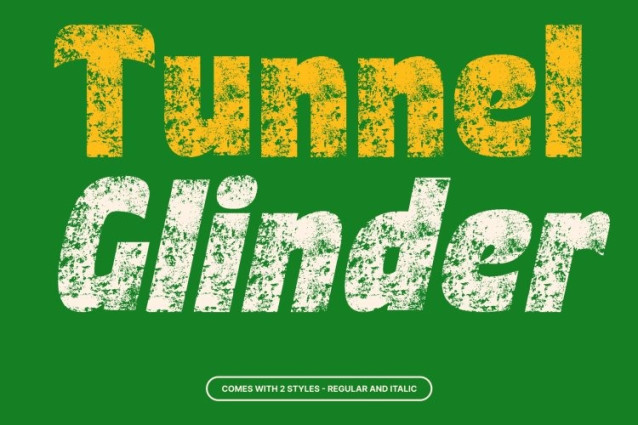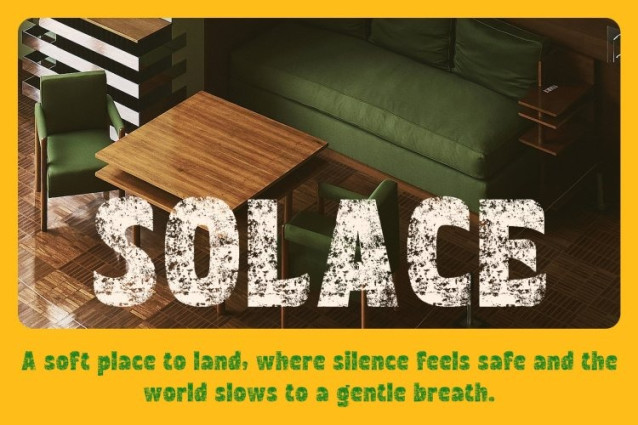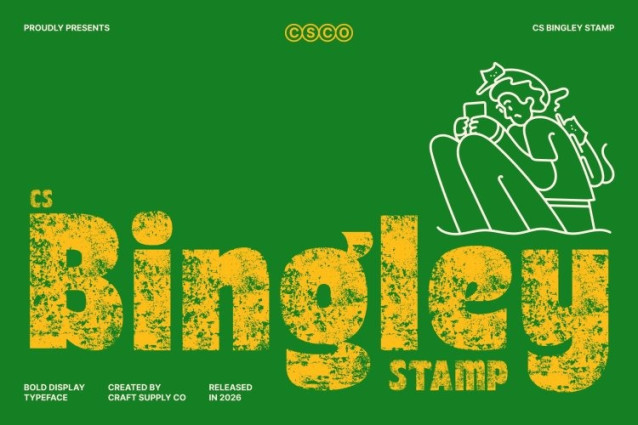
CS Bingley Stamp Font
CS Bingley Stamp Font This is a bold sans-serif display font that fuses solid, oversized forms with a playful retro aesthetic now enhanced by a distinctive stamp texture. Its confident weight and chunky proportions create a strong visual presence, while the stamped finish adds a vintage, print-worn character that amplifies its nostalgic charm.
Eccentric Shapes with Textured Personality
Featuring modified corners, soft curves, and expressive forms, this font radiates quirky, offbeat energy. The stamp effect introduces subtle imperfections and depth, giving each letter a handcrafted feel reminiscent of vintage posters and analog print techniques.
Inspired by ’70s–’90s Culture with Authentic Grit
Rooted in the expressive visual trends of the ’70s to ’90s, this font channels the bold spirit of retro album covers, pop graphics, and throwback advertising. The added texture enhances its nostalgic authenticity while keeping the overall look fresh and relevant for contemporary design.
Perfect for Playful and Nostalgic Branding
Ideal for music posters, youth branding, apparel graphics, packaging, and social media visuals, this font delivers a loud, stylish statement. Its fusion of funky forms and vintage stamp texture ensures every design feels energetic, memorable, and full of personality.